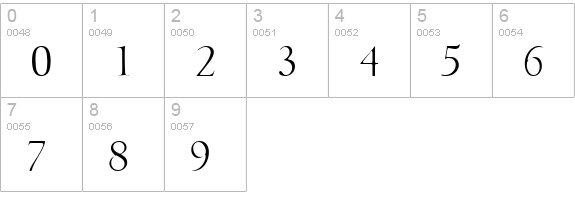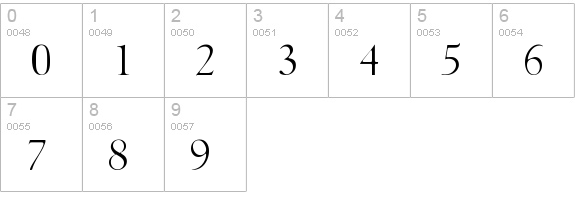
Goudita Light SF is a refined, elegant variant in the Goudita typeface family \xE2\x80\x94 well suited to elegant body text, refined sub-headings, and luxury branding.
Goudita Light SF font is a modern and elegant typeface that exudes sophistication and charm. With its delicate strokes and clean lines, this font is perfect for adding a touch of refinement to your design projects. Whether you're creating invitations, branding materials, or editorial layouts, Goudita Light SF font will bring a sense of style and class to your work. The best part? Goudita Light SF font is available for free! You can easily download this exquisite font at FontsMarket.com and start using it in your projects right away. Don't miss out on the opportunity to enhance your designs with this beautiful and versatile typeface. Download Goudita Light SF font today and elevate your creative projects to the next level.